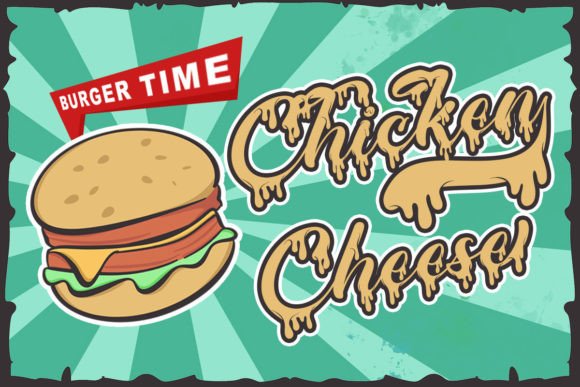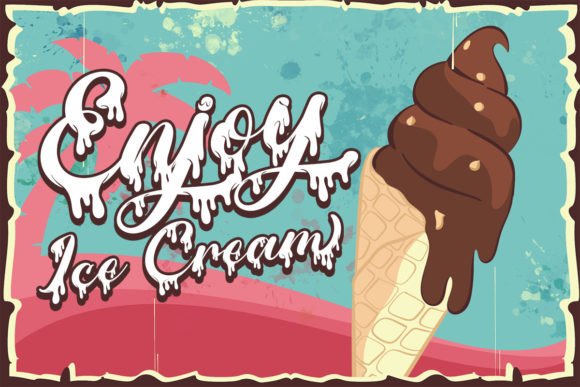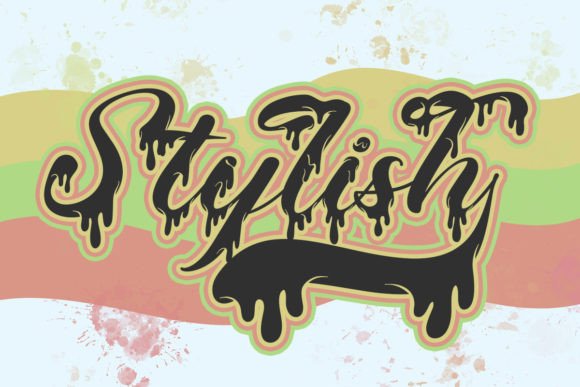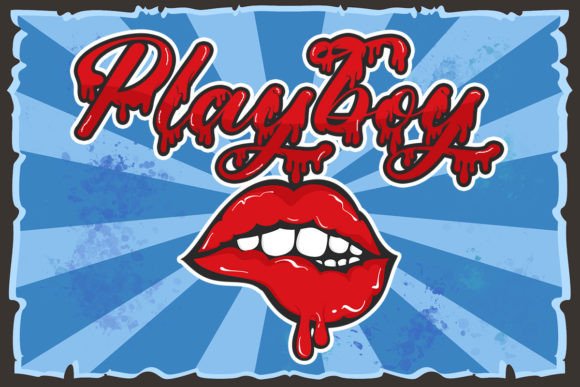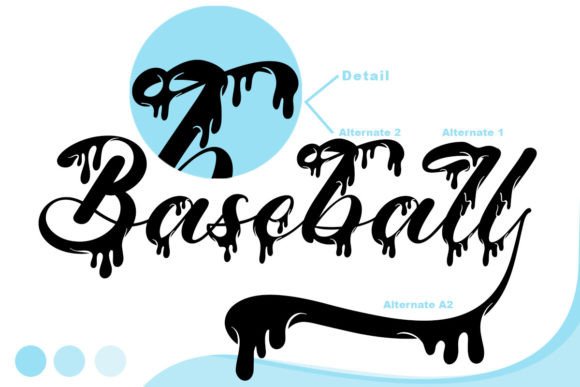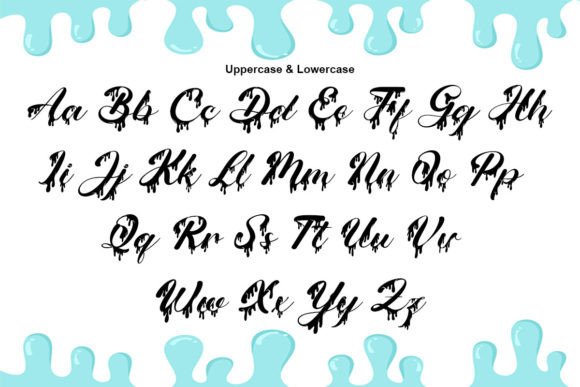
Drip Style Font: The Sweetest Addition to Your Design Collection
Are you a designer or crafter looking for a unique and eye-catching font to add a touch of personality to your projects? Look no further than Drip Style Font, an original and captivating handwritten font that’s sure to make your designs stand out.
What is Drip Style Font?
Drip Style Font is a one-of-a-kind, PUA-coded handwritten font that’s perfect for creating visually appealing designs that grab attention. The font’s unique, drippy style is reminiscent of sweet treats and colorful candies, making it an excellent choice for cake menus, candy store posters, and other designs that aim to entice customers.
Key Features of Drip Style Font
- PUA Coded: Drip Style Font is PUA-coded, which means you can easily access all glyphs and swashes, giving you complete creative control over your designs.
- Handwritten Style: The font’s handwritten style adds a personal touch to your designs, making them more relatable and engaging.
- Unique and Original: Drip Style Font is an original creation, ensuring that your designs will stand out from the crowd and avoid clichés.
- Multipurpose: While the font excels in sweet-themed designs, it’s versatile enough to be used in a variety of projects, from branding and packaging to social media graphics and more.
Drip Style Font is an excellent addition to any designer’s or crafter’s collection, offering endless possibilities for creative expression. Here are some ways you can use this fantastic font:
- Cake Menus: Create mouth-watering cake menus that showcase your bakery’s offerings in a visually appealing way.
- Candy Store Posters: Design eye-catching posters that highlight your candy store’s products and promotions.
- Branding and Packaging: Use Drip Style Font to create custom branding and packaging for your sweet treats, making them instantly recognizable.
- Social Media Graphics: Add a touch of whimsy to your social media graphics, such as Instagram posts and Facebook banners, to engage your audience.
Tips for Using Drip Style Font
To get the most out of Drip Style Font, here are some tips to keep in mind:
- Experiment with Colors: The font’s playful style lends itself well to bright, bold colors. Don’t be afraid to experiment and find the perfect color combination for your design.
- Mix and Match: Combine Drip Style Font with other fonts to create interesting contrasts and add visual interest to your designs.
- Play with Swashes: Take advantage of the font’s PUA coding to access a range of swashes and glyphs, adding a personal touch to your designs.
Drip Style Font is a unique and captivating handwritten font that’s perfect for designers and crafters looking to add a touch of personality to their projects. With its PUA coding, handwritten style, and versatility, this font is sure to become a favorite in your collection. So why wait? Get creative with Drip Style Font today and make your designs drip with style!